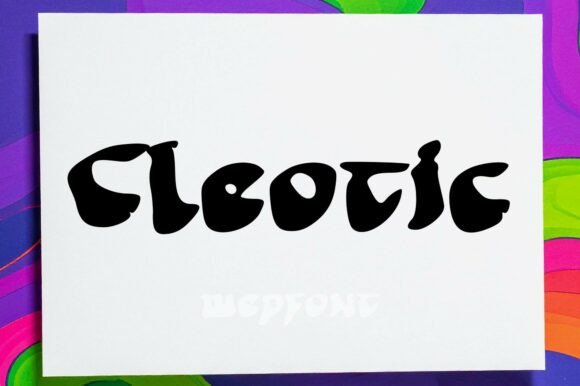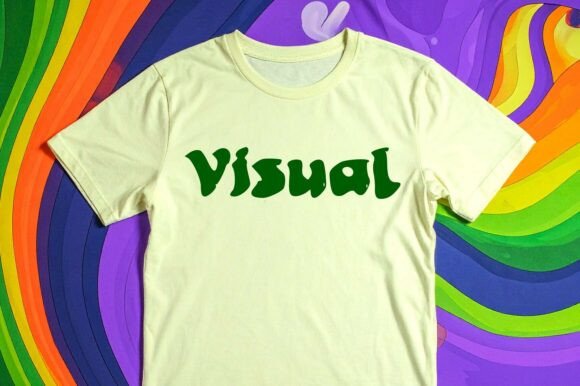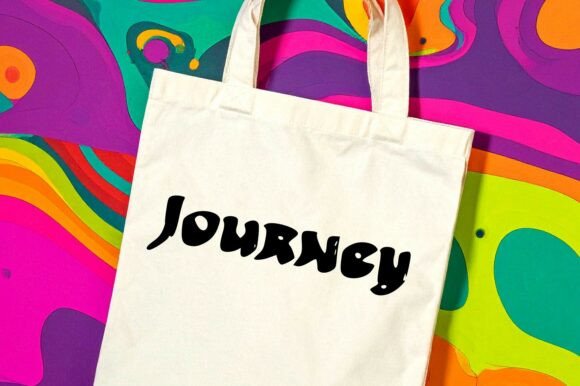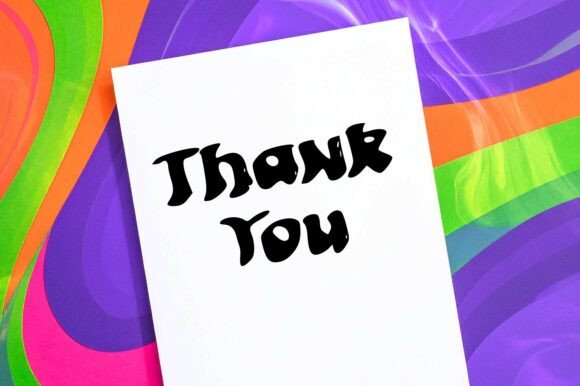
Introduction to Cleotic Font
Immerse yourself in the ebullient vintage allure of Cleotic, an extraordinary display font embodying the unshackled spirit of the psychedelic 60s and 70s.
Majestic in its eccentricity, Cleoticโs letterforms possess a hearty energy and playful contours, resulting in a hypnotic visual cadence that captivates and beguiles It paints a vivid visual imagery alluding to a throbbing โlava lampโ or a kaleidoscopic splash of a psychedelic poster.